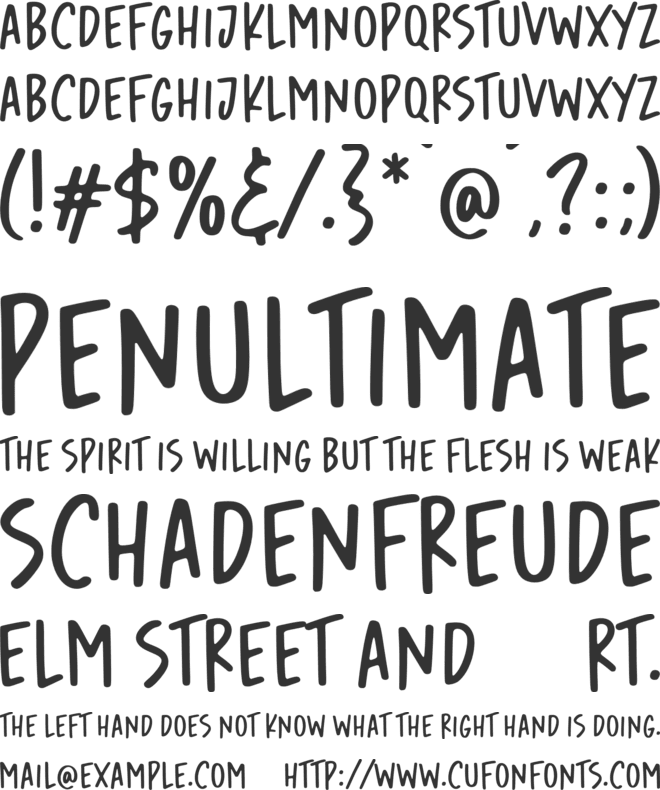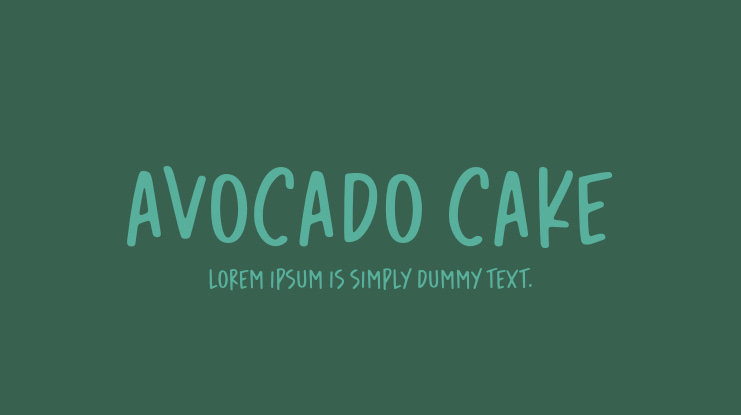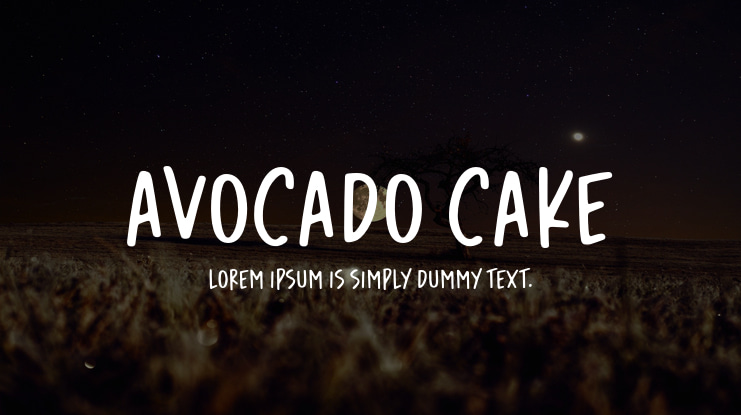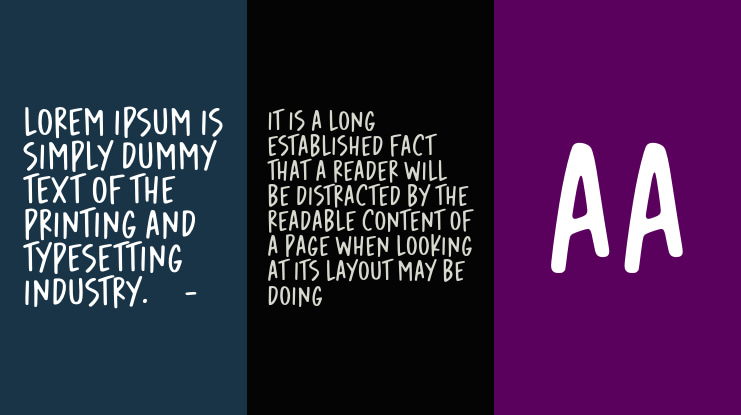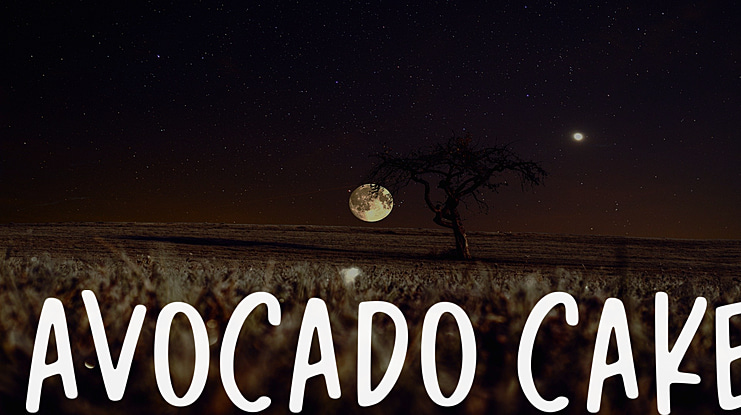
Avocado Cake Font
It’s a fun and cheerful handwritten font display. This font is suitable for handwriting logos, T-shirts, merchandise, quotes, social media posts, advertising, and a lot more! Avocado Cake comes with an accent language and ligatures. This purchase includes a TTF, OTF, & WOFF font file.